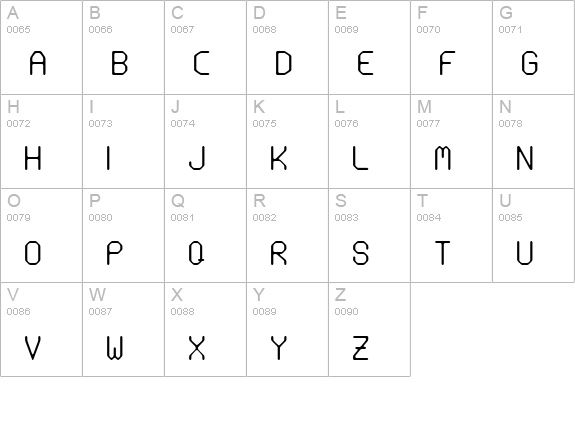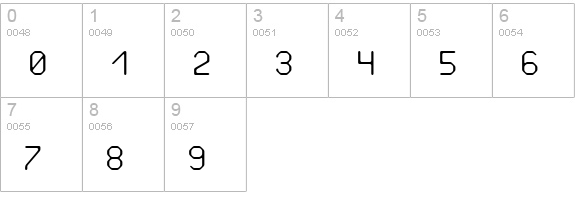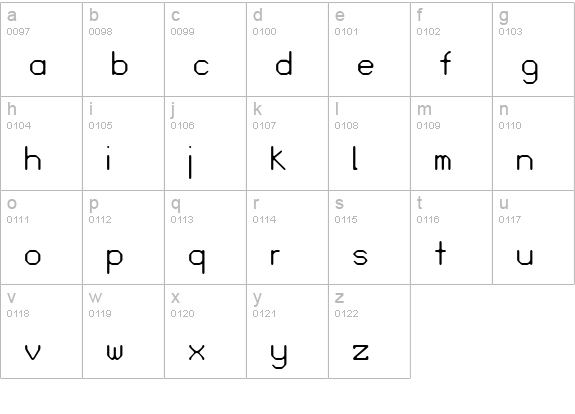
Love Parade Font Details
Love Parade font is a whimsical and playful typeface that is sure to bring a touch of romance to your designs. With its graceful curves and charming details, Love Parade is perfect for conveying a sense of love and joy in various creative projects. This delightful font is free to download at FontsMarket.com, making it easily accessible for all designers and enthusiasts looking to add a touch of sweetness to their work. Whether you're working on greeting cards, wedding invitations, or any other project that needs a bit of love, Love Parade font is the perfect choice to spread positivity and warmth.